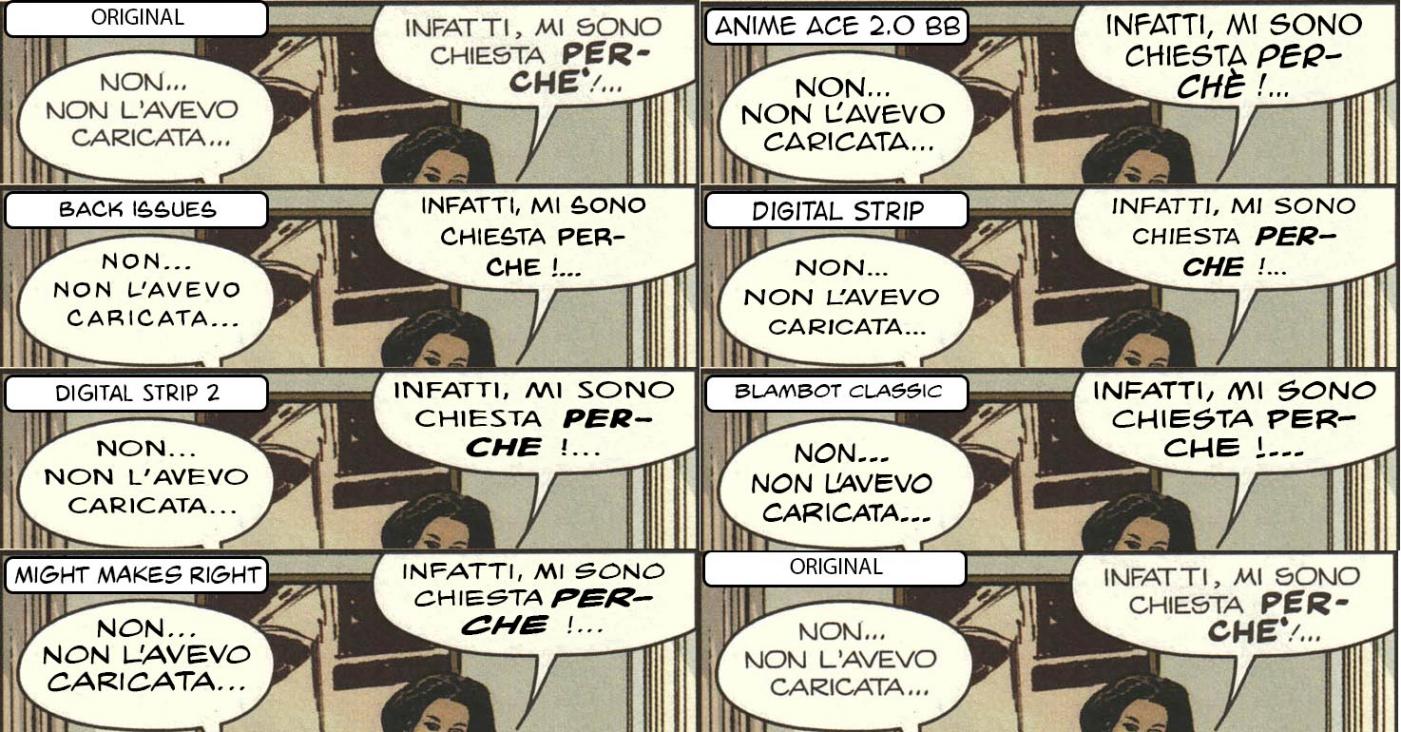
Alternative fonts of Sergio Bonelli's comic book font
I've been looking for a similar, alternative font of the one used for lettering in Sergio Bonelli's comic books. I've contacted with the font's creator for information. However, only to be acknowledged of that it's a copyrighted font for only created for Sergio Bonelli Editorie, so it's not up to sell/buy. So, I look for a similar, alternative one. This font attracts my eyes with it's thin and proportioned letters. It's a big plus that the letters are slim and yet easily readable and also, there's no crossbar on the capital letter "I". I'm open to any kind of suggestions, please feel free to comment.
P.S. I've already tried with font identifier search engines (FontSquirrel, FontSpring, MyFonts) but most of the suggested fonts are thick and wide spaced.
Yes, that's a nice handwritten looking font. I especially like the strong difference in weight between the regular and the bold italic.
Have you checked out the Dialog Fonts section at blambot.com?
At a glance, I don’t see anything there that’s exactly what you’re looking for, and the following suggestions probably don’t meet your criteria, but perhaps you would like to take a look at Blambot's Digital Strip, Digital Strip 2, Anime Ace 2, or Back Issues (all free-ish); or Blambot Classic or Might Makes Right (both licensed).
That's indeed nice handwriting font, you're right about the difference weights.
I've checked Blambot's fonts before. I've taken your suggestions into consideration and tried them. As you can see on the picture attached, some of the fonts don't work with bolding letters. However, I think Blambot's "Digital Strip 2" font seems close enough to work for me.